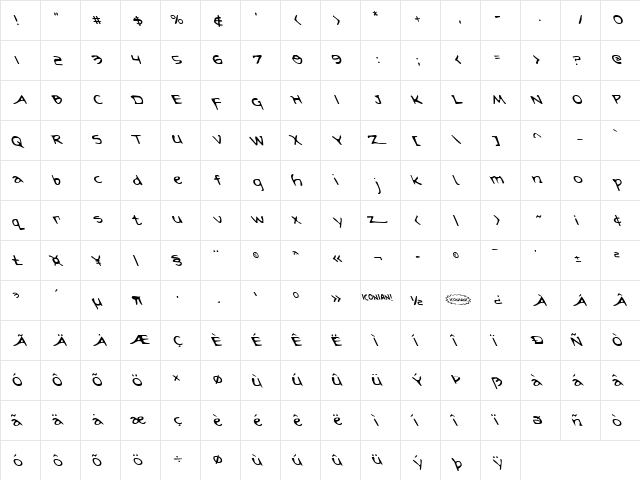
Arilon Leftalic Italic
Design Context for Arilon Leftalic Typeface
Arilon Leftalic takes a measured approach to typography — its balanced proportions and neutral character make it a reliable workhorse for both digital and print work. The dynamic lean of this cut emphasises speed and emphasis in any layout.
Pro Tip: Use Arilon Leftalic for emphasis, pull quotes, and subheadings where its slanted energy can add rhythm to the layout.